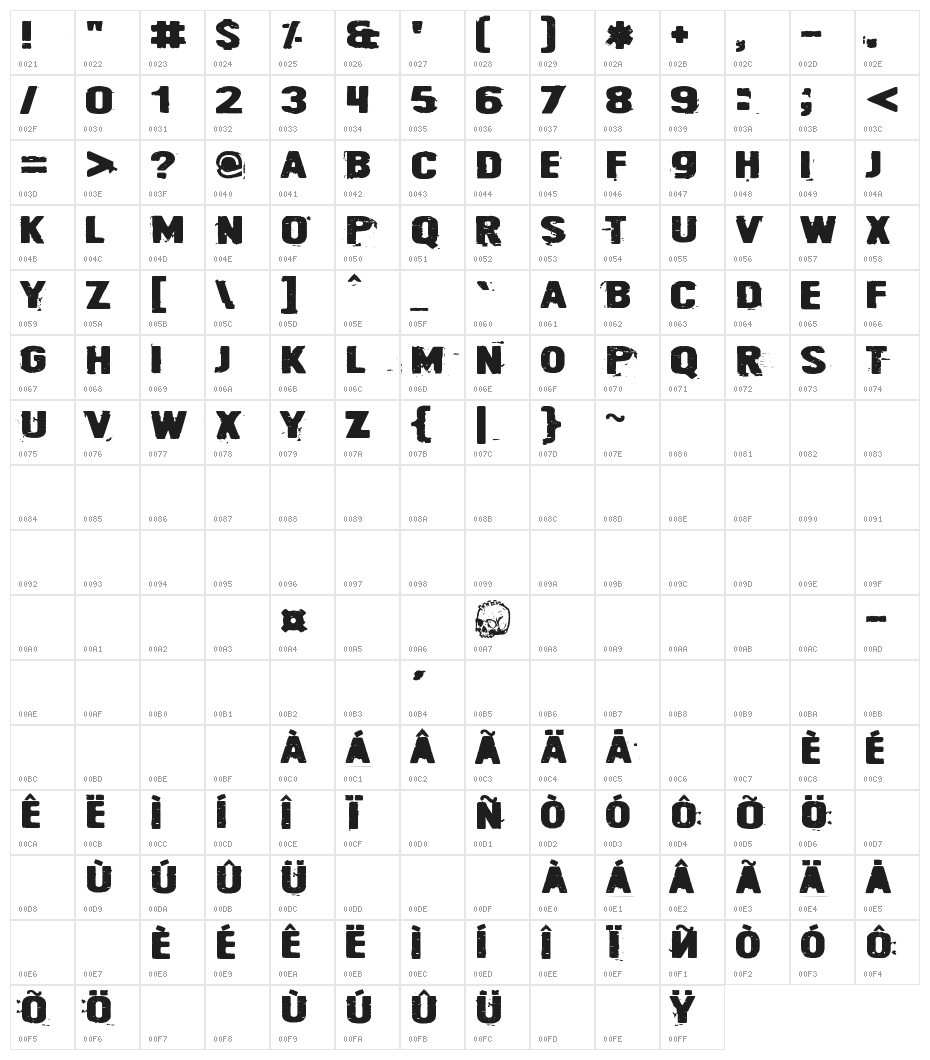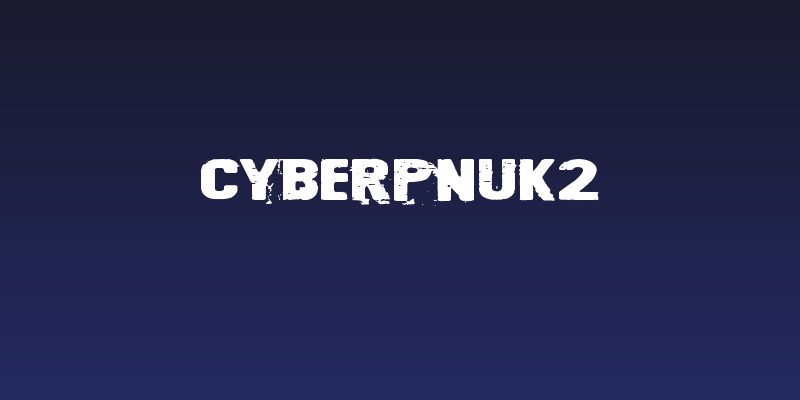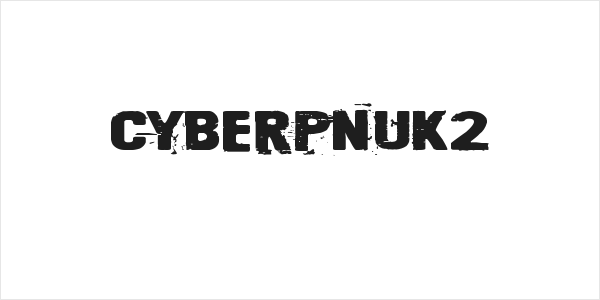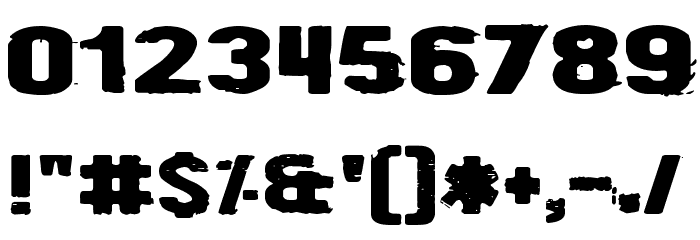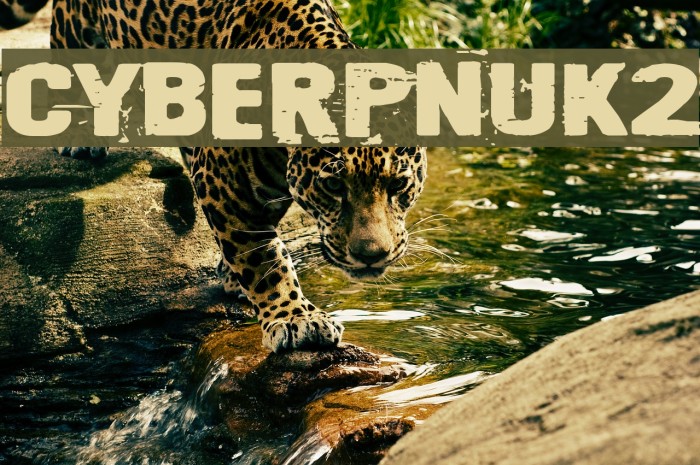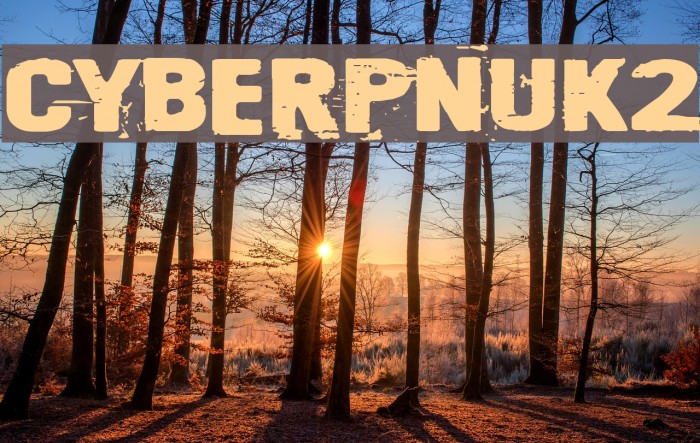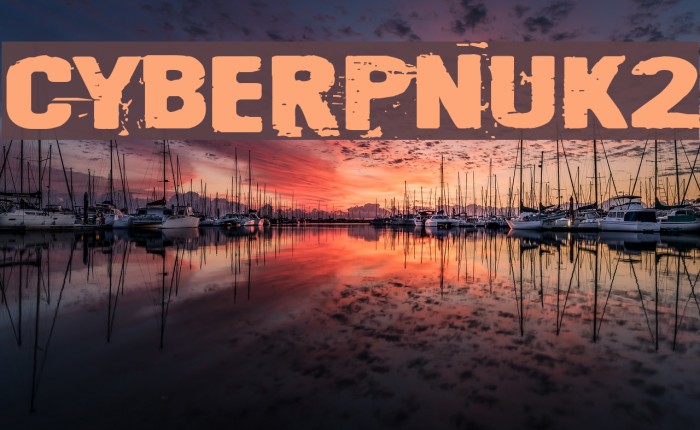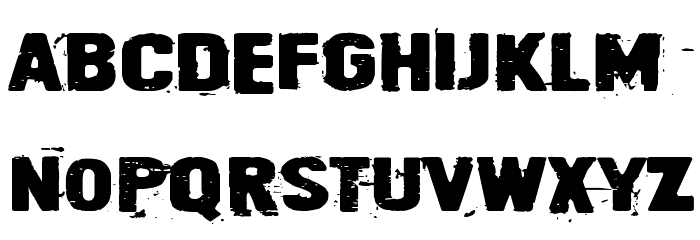
Cyberpnuk2 Font
Cyberpnuk2 Description
This font features a bold, distressed style with a gritty, urban aesthetic. The characters are heavily textured, giving the appearance of being worn or eroded, which adds a sense of ruggedness and edginess. The uppercase letters are prominent and impactful, while the numbers and special characters maintain the same distressed look, ensuring consistency across all glyphs. This font is ideal for projects that require a strong, rebellious vibe, such as posters, album covers, or video game titles. Its unique style makes it stand out, capturing attention with its bold and unconventional appearance.
| Overall Style | Urban, Edgy, Distressed |
| Proposed Projects | Posters, album covers, video game titles, streetwear branding. |